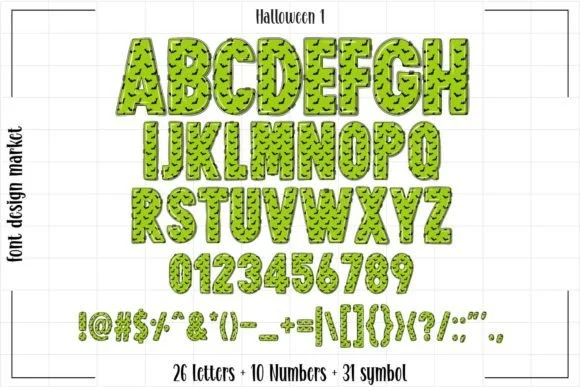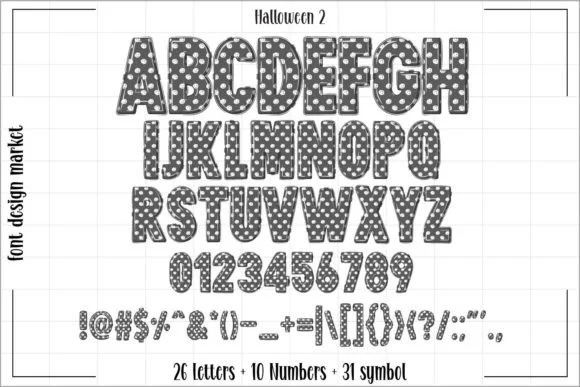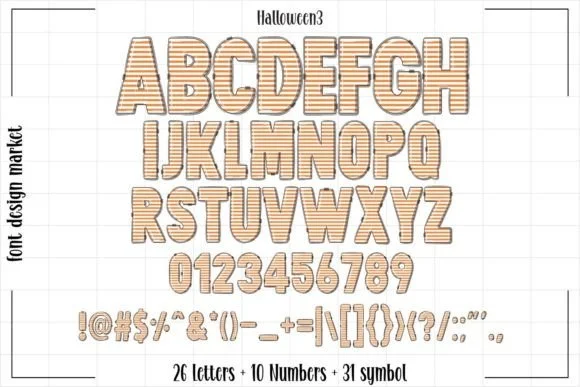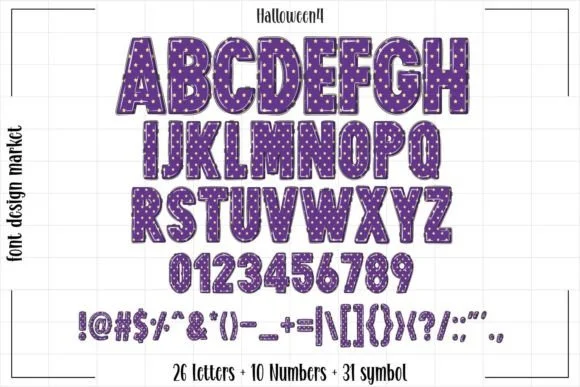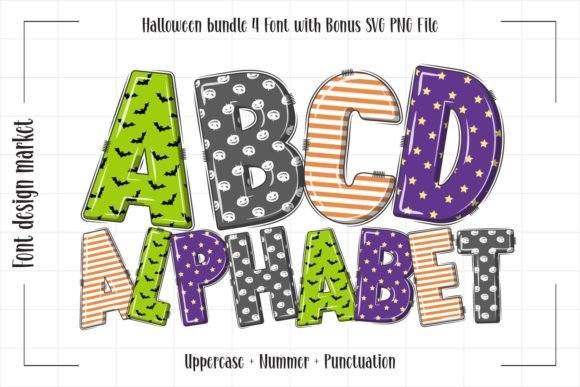
H Halloween Font Font
This quintessential font is perfect for core Halloween celebrations, fundamental spooky events, essential Halloween marketing, basic Halloween decorations, standard Halloween invitations, primary Halloween displays, foundational Halloween branding, classic Halloween communications, central Halloween festivities, and fundamentally essential Halloween messaging materials.
Halloween Font is exciting because it serves as the foundational cornerstone and typographic heart of Halloween celebration through its fundamentally crafted letterforms that embody the pure, undiluted essence of what makes October 31st the most universally beloved supernatural holiday in human culture. The font features essentially perfect characters with foundational Halloween proportions and core details that represent the distilled spirit of Halloween in its most recognizable and universally appealing form, incorporating fundamental flourishes and essential elements that create typography as authentically Halloween and timelessly effective as the holiday itself. Each letter showcases the enduring principles and universal appeal that makes Halloween such a fundamentally successful celebration across all cultures and generations, with core curves and essential accents that transform ordinary text into expressions of pure Halloween essence that capture everything that is most important, most recognizable, and most eternally appealing about the greatest supernatural celebration ever created by human imagination and community spirit.
The Halloween Font family includes foundational style variations: Regular, Bold, Light, Essential, and Core versions. The collection features special fundamental elements including basic accents, essential flourishes, core details, and foundational ornaments. Additional components include standard borders, basic frames, essential decorations, and fundamentally perfect ornamental designs that enhance the font's Halloween appeal and create cohesive foundational Halloween themes.
Halloween traditionalists and essential celebration organizers will find Halloween Font to be the indispensable resource for creating authentically foundational Halloween communications that honor the core principles and essential elements that have made Halloween such a universally successful and eternally appealing supernatural celebration. This fundamentally crafted font transforms ordinary Halloween messaging into essential expressions that resonate with all audiences who understand that Halloween's greatest strength lies in its fundamental ability to unite people in celebration of imagination, community, and the eternally fascinating human relationship with the supernatural and mysterious.
The typeface includes comprehensive character support with foundational styling that maintains excellent readability while conveying the essential spirit and core atmosphere of fundamental Halloween celebrations. The font's essentially perfect design ensures foundationally authentic results across all possible Halloween applications and quintessentially successful supernatural productions.
Perfect for foundational Halloween events, essential celebrations, core Halloween marketing, and fundamentally successful Halloween communications, this font delivers essentially perfect visual impact that communicates universal appeal, foundational strength, and the quintessential truth that Halloween represents humanity's most successful and fundamentally appealing celebration of the supernatural imagination.